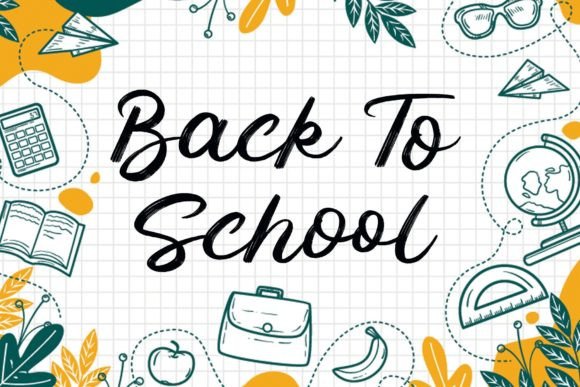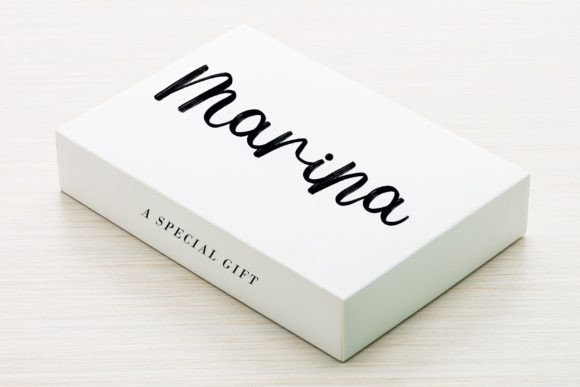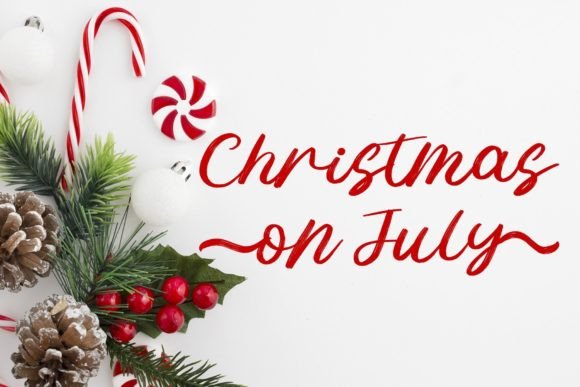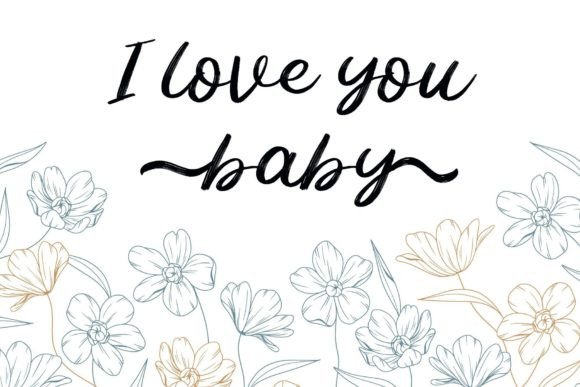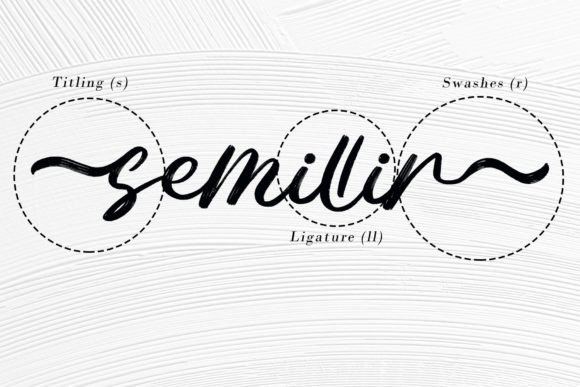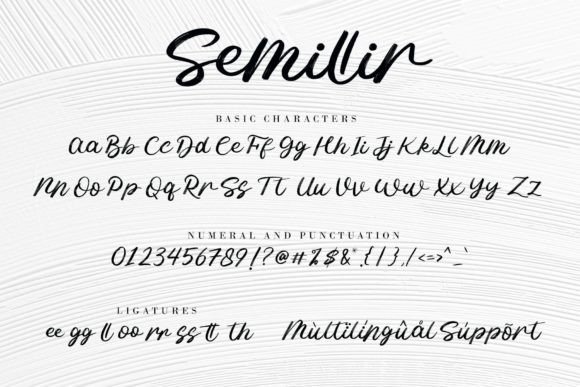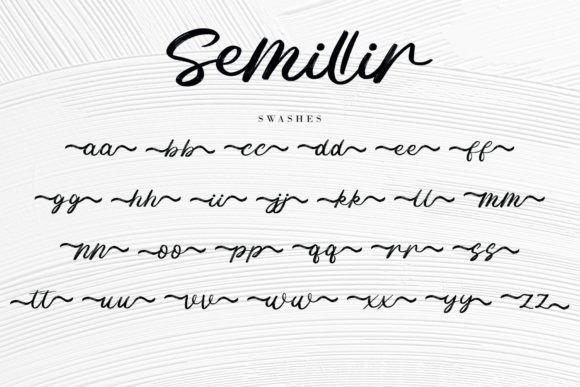
Semillir Font
About Semillir Font
Semillir stands out as a natural, romantic, and sweet handwritten brush font. Its characteristics make it a versatile choice for a wide array of purposes, including logos, quotes, posters, playful lettering, clothing, and any other design that requires a unique touch.
The natural and handwritten qualities of Semillir contribute to its charm, infusing designs with an authentic and organic feel. This makes the font well-suited for projects that aim to convey a sense of warmth and personal touch.
The romantic and sweet aspects of Semillir make it an ideal choice for various applications. Whether used in quotes, posters, or playful lettering, the font brings a touch of romance and sweetness to the visual representation, creating an emotional connection with the audience.
In logo design, Semillir’s unique brush strokes can add a distinctive and memorable element. The font’s versatility allows it to adapt to different branding styles, providing a playful and inviting character to the overall brand identity.
For clothing designs, Semillir can be used to create custom lettering that aligns with the brand’s personality. The handwritten brush style adds an element of creativity and uniqueness to apparel designs, making them stand out.
In summary, Semillir is more than just a font; it is a design tool that embodies natural, romantic, and sweet qualities. Its versatility makes it suitable for a variety of creative purposes, allowing designers to add a unique touch to their projects. Whether used in logos, quotes, posters, or clothing designs, Semillir brings a distinctive and charming character to every application.